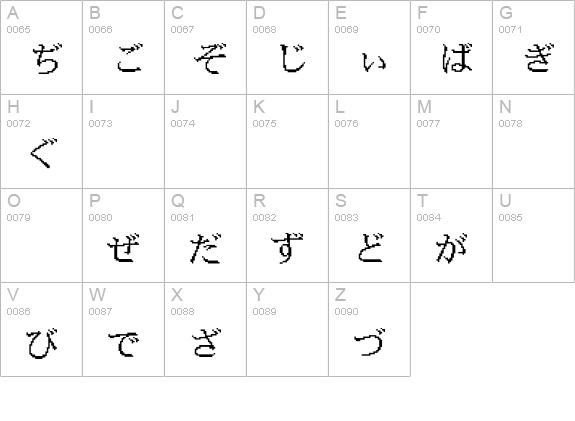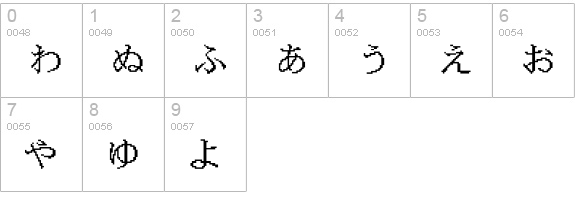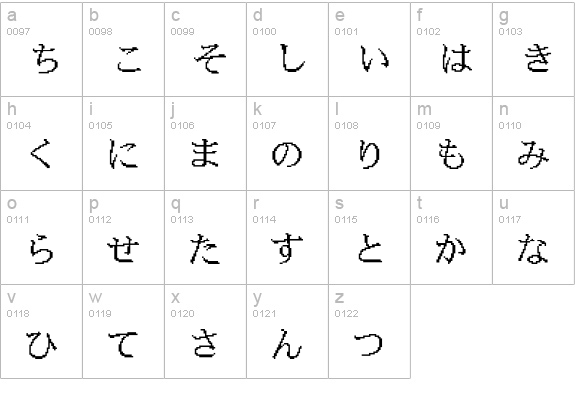
Kakumin Font Details
Introducing Kakumin Font, a stunning typeface that effortlessly combines elegance with a touch of modernity. With its sleek curves and refined letterforms, this font is perfect for adding a touch of sophistication to any design project. What sets Kakumin Font apart is not only its impeccable aesthetics but also its availability as a free download. That's right, this remarkable font can be yours without any cost! Thanks to the generosity of FontsMarket.com, Kakumin Font is freely accessible to all. Whether you're a professional designer or a typography enthusiast, Kakumin Font offers endless possibilities. Its versatility allows it to be used in a wide range of projects, from elegant wedding invitations and logos to eye-catching posters and social media graphics. The attention to detail in Kakumin Font is truly remarkable. Each glyph has been meticulously crafted to ensure a harmonious balance between form and function. The result is a font that exudes confidence and refinement, making it the perfect choice for those seeking to make a lasting impression. With its extensive character set, Kakumin Font supports multiple languages, making it suitable for global design projects. Its smooth lines and distinctive letter shapes ensure legibility at any size, whether it's used for headings or body text. Downloading Kakumin Font is a breeze. Simply head over to FontsMarket.com and find this gem among their vast collection of fonts. Once downloaded, you'll have the freedom to use Kakumin Font in any personal or commercial project, without any restrictions. So why wait? Elevate your designs today with Kakumin Font. Its timeless elegance and availability as a free download make it an invaluable addition to any designer's toolkit. Don't miss out on this exceptional font that will take your creations to new heights.